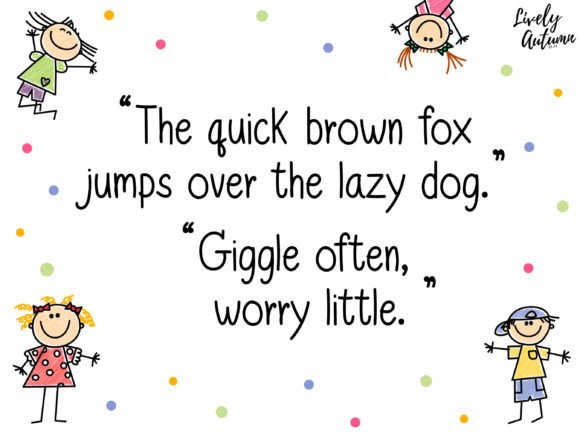
Happy Kiddy Font
Happy Kiddy Font is a kid-written San Serif font. Perfect for your kid’s theme project, personal projects, and various projects. From invitations to posters, social media graphics, journals, and much more.